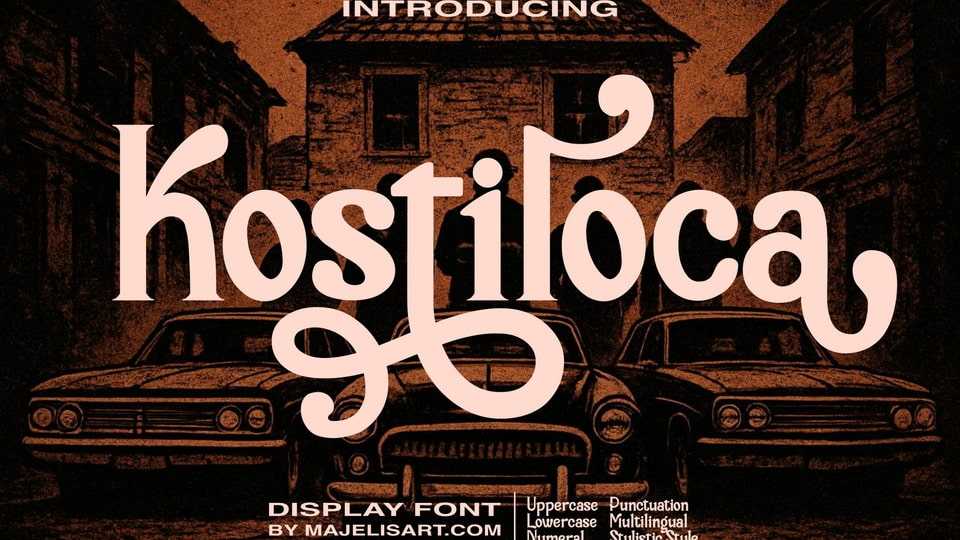
Download Kostiloca font, a bold display typeface that combines retro vibes with stylish ornamental touches. Inspired by vintage mafia aesthetics, this typeface delivers a strong, confident, and eye-catching look.
Designer: Fikhry Mus Pratama